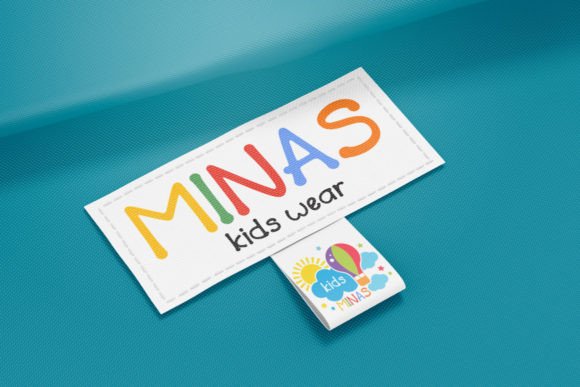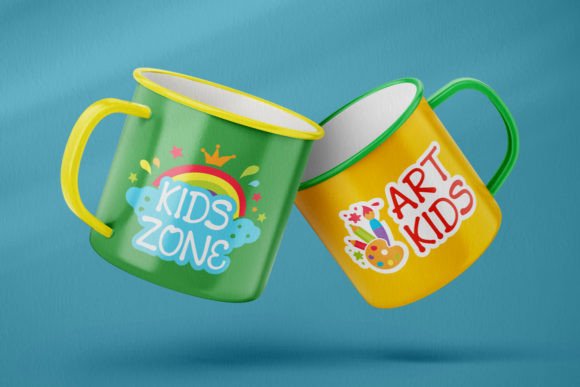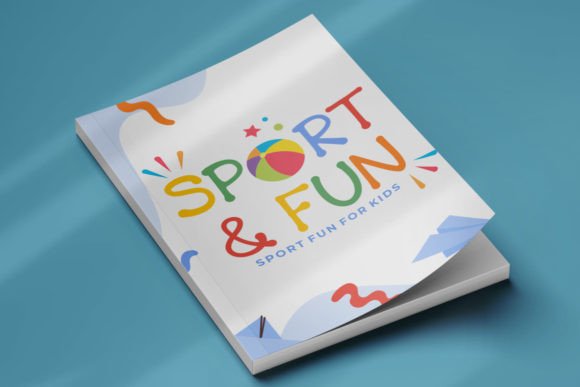
Discover the Delightful World of Fun Art Friends Font
As a designer, I’ve had my fair share of moments where I’ve struggled to find the perfect font for a project. But one font that has left a lasting impression on me is the Fun Art Friends Font. This delightful and playful font has a theme that resonates with children, bringing a sense of fun and whimsy to my designs. In this article, I’ll share my experience with Fun Art Friends, its features, and how to make the most of it in your designs.
A Design Moment of Inspiration
I recall working on a project for a children’s book cover, and I was determined to create something that would capture the attention of my young audience. I spent hours browsing through font libraries, but nothing seemed quite right. That was until I stumbled upon Fun Art Friends Font. Its playful, handwritten style immediately caught my eye, and I knew I had found the perfect fit. The font’s free-spirited and energetic vibe resonated with the theme of the book, and I was able to create a cover that was both fun and engaging.
So, what do I love about Fun Art Friends Font? Here are a few things that make it stand out:
- ✨ Playful and whimsical: The font’s handwritten style is perfect for projects that require a lighthearted and carefree approach.
- ✅ Easy to read: Despite its playful nature, the font is surprisingly easy to read, making it suitable for body text and titles.
- 💕 Versatile: Fun Art Friends Font can be used for a wide range of projects, from children’s books to logos, printing materials, and more.
While Fun Art Friends Font is an excellent choice, there are a few quirks to be aware of:
- 🤔 Limited use in formal contexts: Due to its playful nature, Fun Art Friends Font may not be suitable for formal projects or those that require a more professional tone.
- ⚠️ Some letters may require adjustment: As with any handwritten font, some letters may require adjustment to ensure proper spacing and alignment.
Fun Art Friends Font was designed with the intention of capturing the innocence and imagination of young minds. The font’s creator wanted to create a typeface that would bring joy and excitement to designs, making it perfect for projects targeting children or those that require a lighthearted approach. The font’s playful, handwritten style is inspired by the free-spirited and energetic handwriting of children.
| What is Fun Art Friends Font best used for? | Fun Art Friends Font is best used for projects that require a playful and whimsical touch, such as children’s books, logos, and printing materials. |
| Is Fun Art Friends Font easy to read? | Yes, despite its playful nature, Fun Art Friends Font is surprisingly easy to read, making it suitable for body text and titles. |